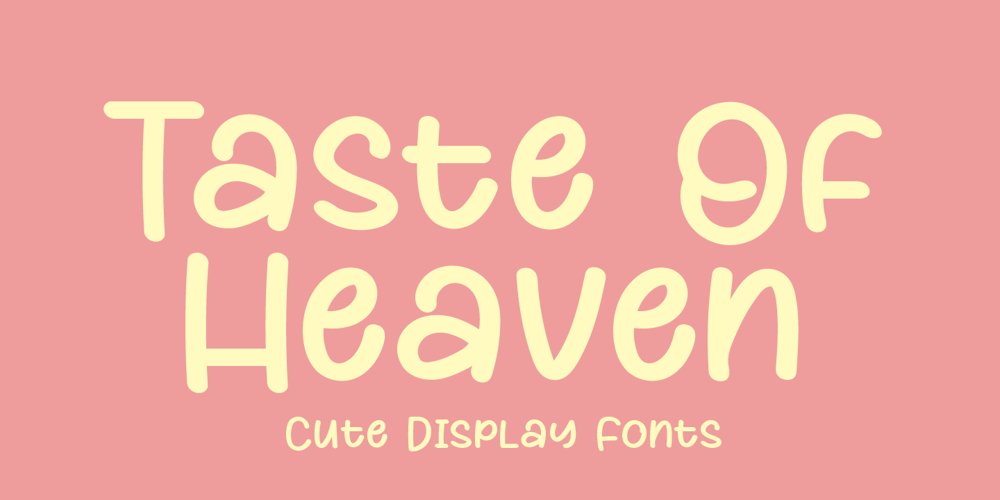
Taste Of Heaven
Taste Of Heaven font
Taste Of Heaven Font Family was designed by Stefie Justprince and published by Crumphand. Taste Of Heaven contains 1 styles and family package options. Introducing the new hand made font ” Taste Of Heaven “This font made from real hand writing.Looks clean and coolWhat’s Included ? Uppercase Lowercase Symbols Numerals Multilingual Supports Thank You, Regards!